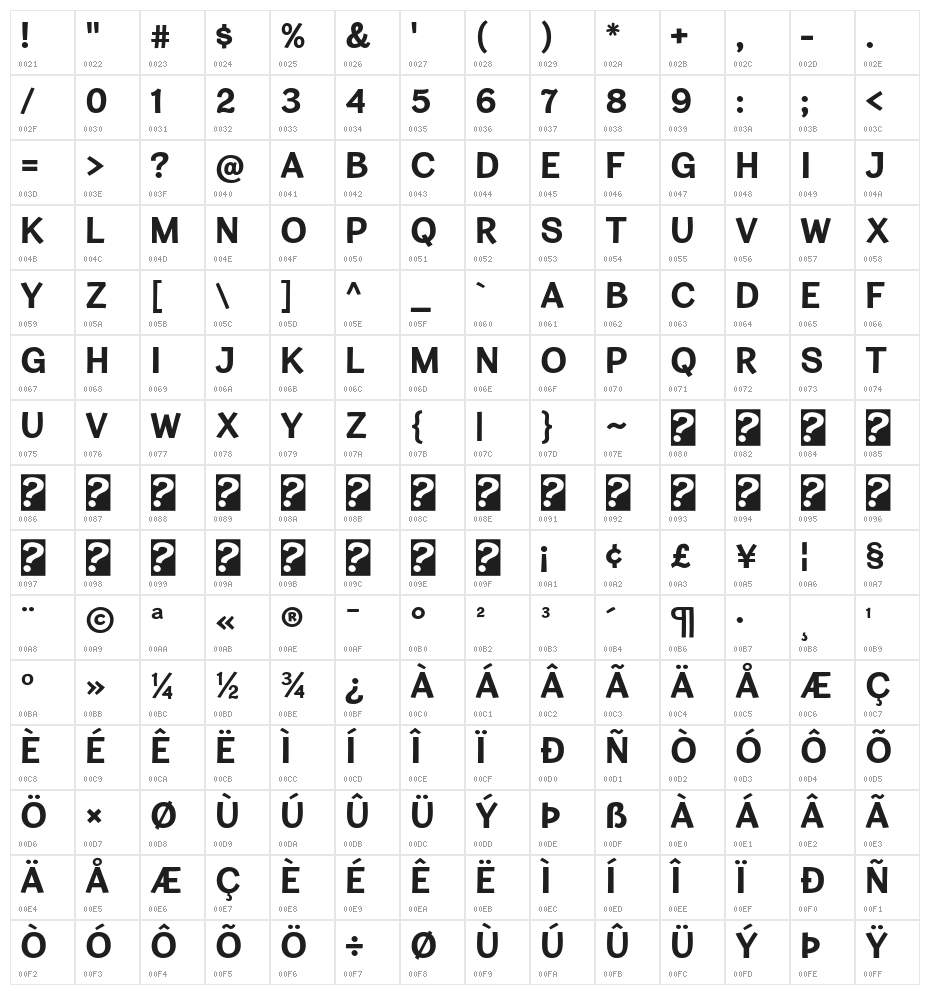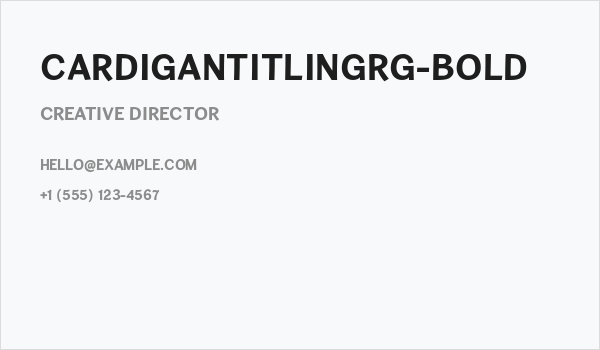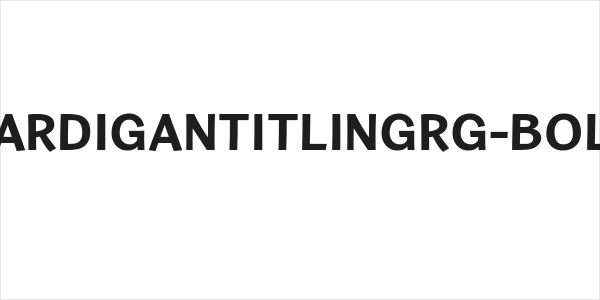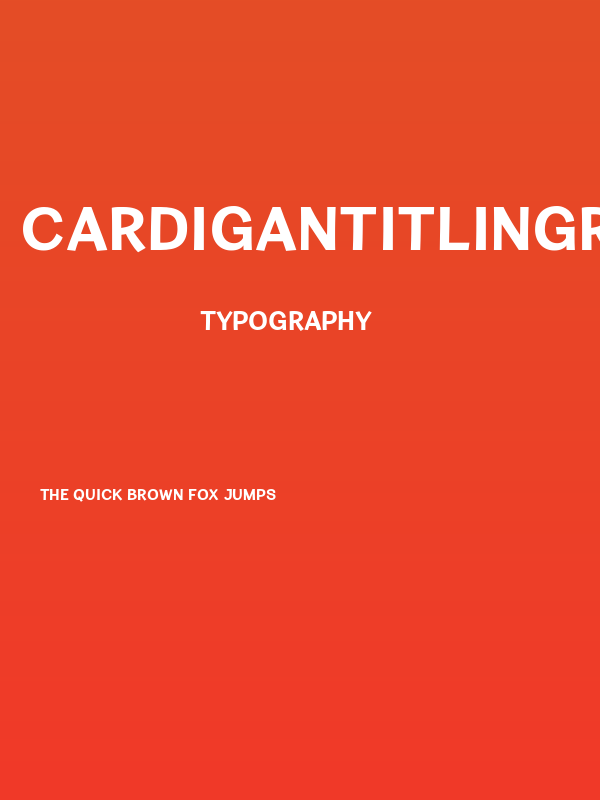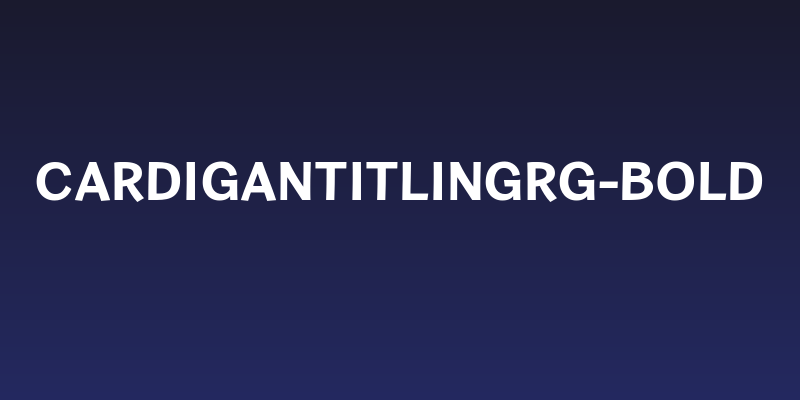
CardiganTitlingRg-Bold Font
CardiganTitlingRg-Bold Description
This font is a bold, sans-serif typeface characterized by its clean and modern appearance. The letters are uniformly thick, providing a strong and impactful visual presence. The uppercase and lowercase letters maintain a consistent style, with rounded edges that soften the overall look. The numbers are clear and legible, matching the boldness of the alphabetic characters. Special characters are well-defined, ensuring versatility in various design contexts. The font's simplicity and clarity make it suitable for a wide range of applications, from digital to print media.
| Use Case | Headlines, Logos, Advertising |
| Proposed Projects | Ideal for branding, advertising, headlines, and digital media projects. |